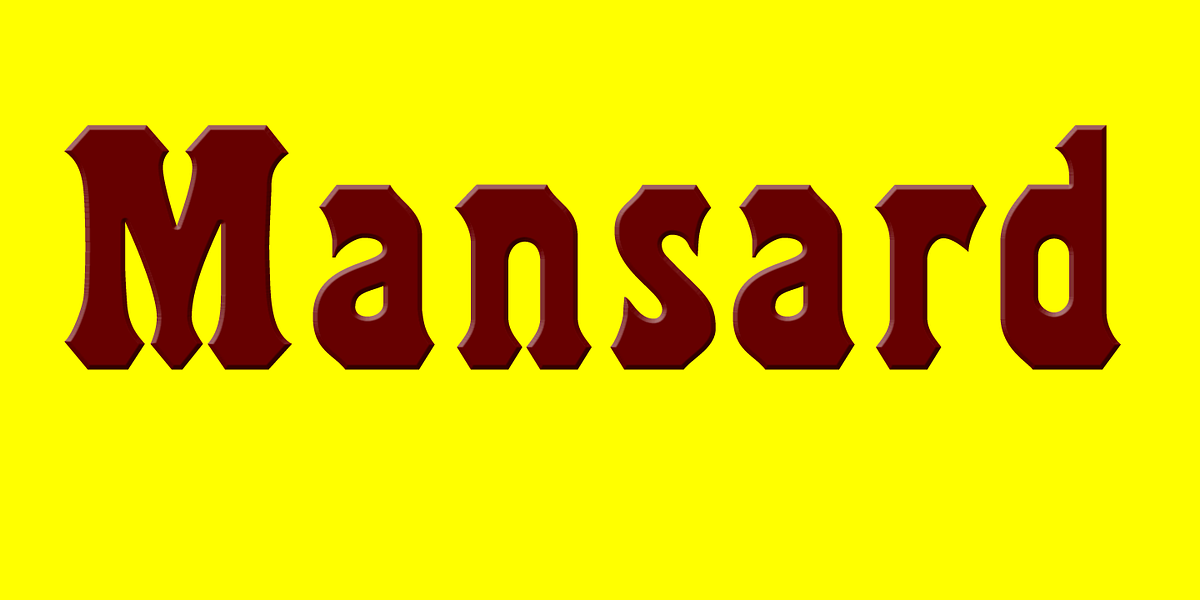
Mansard
This font is a revival of a popular wood type style from the 1870s. Its distinctive characteristics include curved sides, very short descenders, and serifs that are both curved and blocky in shape.